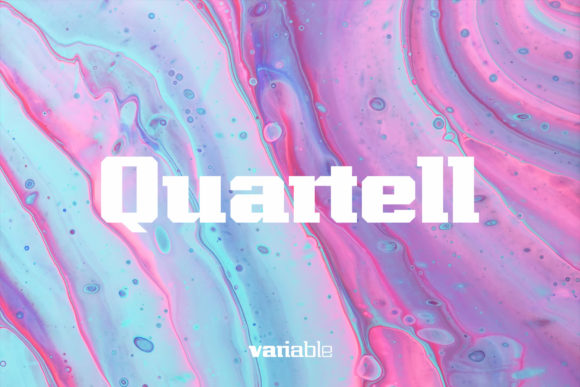
Prepare to be awestruck by Quartell Variable Font, an exceptional creation by NREY, destined to transform your design projects. This stunning slab serif font is the perfect embodiment of modern sophistication and timeless elegance, promising to elevate your visual creations to unprecedented heights.
With Quartell Variable at your disposal, you'll unlock the gateway to a world of captivating captions, striking headlines, and unforgettable logos. Allow its unique style to infuse your designs with an aura of distinction, ensuring they command attention and leave a lasting impression.
Unlike other fonts that blend into the background, Quartell Variable boldly stands out with its distinct personality. Its meticulously crafted characters exude a charm and charisma that will mesmerize your audience. From polished brochures to vibrant posters, Quartell Variable seamlessly adapts to any design challenge, effortlessly elevating your message and evoking emotions.
Embrace the artistic freedom that Quartell Variable offers. Experiment with its variable font feature to fine-tune the weight, width, and contrast, creating a tailor-made font that perfectly aligns with your creative vision. Discover the endless possibilities as you effortlessly craft designs that resonate with your brand's identity and captivate your target audience.
Unleash your creativity and dive into a world of design possibilities with Quartell Variable. Its versatility extends far beyond logos and captions; it lends itself beautifully to body text, adding a touch of sophistication and legibility to your written content. Experience the joy of creating documents, articles, and web content that are both visually stunning and easy on the eyes.
Join the creative revolution and elevate your design game with Quartell Variable. Let its distinctive charm and unwavering elegance transform your projects into masterpieces that leave an indelible mark on your audience. Embrace the power of Quartell Variable today and unlock the gateway to a world of impactful and unforgettable designs.